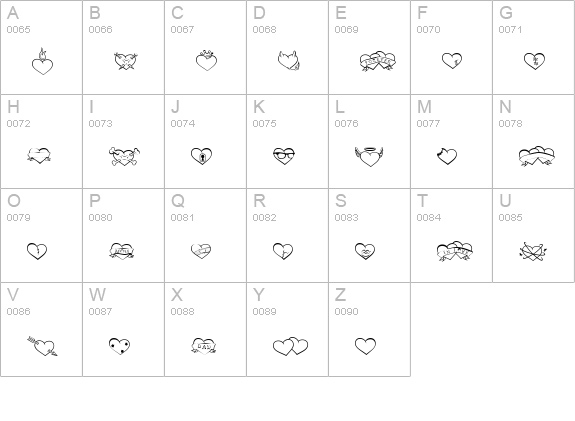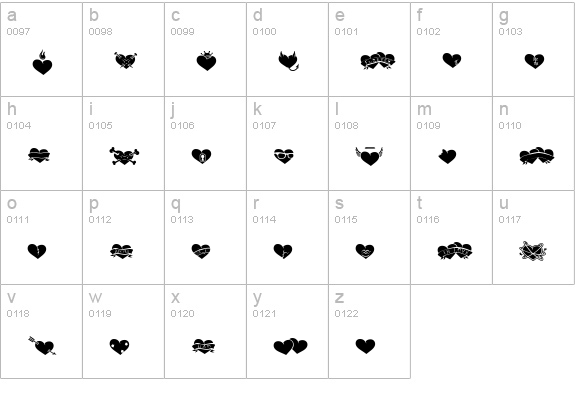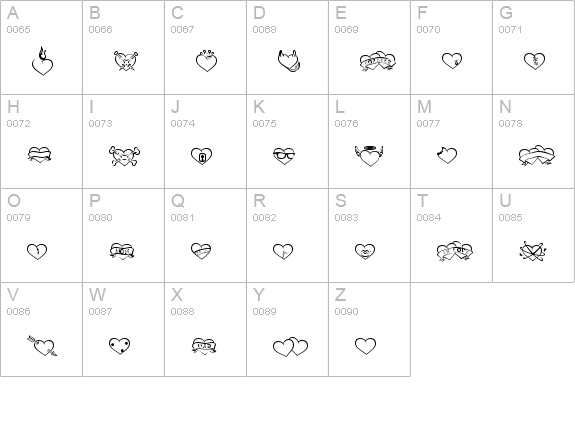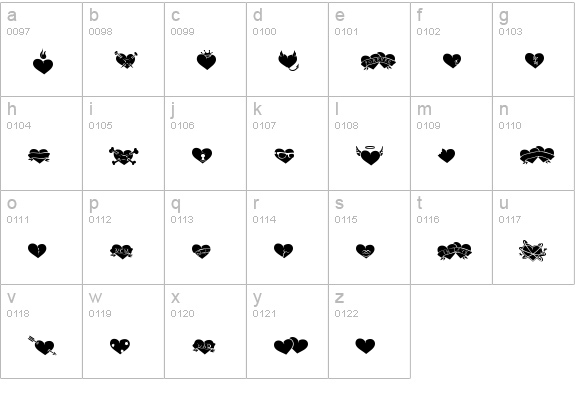
HeartBreaker BTN Font Details
Introducing HeartBreaker BTN, a stunningly stylish font that is guaranteed to steal your heart. With its elegant curves and bold lines, this font is perfect for adding a touch of sophistication to any project. But what sets HeartBreaker BTN apart from the rest? It's the fact that it is absolutely free! Yes, you heard that right. This incredible font can be yours without spending a single penny. Now, you can bring a touch of class to your designs without breaking the bank. Whether you're designing a logo, creating a poster, or crafting a wedding invitation, HeartBreaker BTN will elevate your work to new heights. Its versatility allows it to be used in both formal and casual settings, making it the perfect choice for any occasion. And the best part? HeartBreaker BTN is readily available for download at FontsMarket.com. Simply visit the website, search for HeartBreaker BTN, and start downloading this amazing font right away. With just a few clicks, you can have this beautiful typeface at your fingertips. So why wait? Embrace the elegance and charm of HeartBreaker BTN today. Download this free font from FontsMarket.com and watch as your designs come to life with a touch of magic. It's time to break hearts in the most mesmerizing way possible.